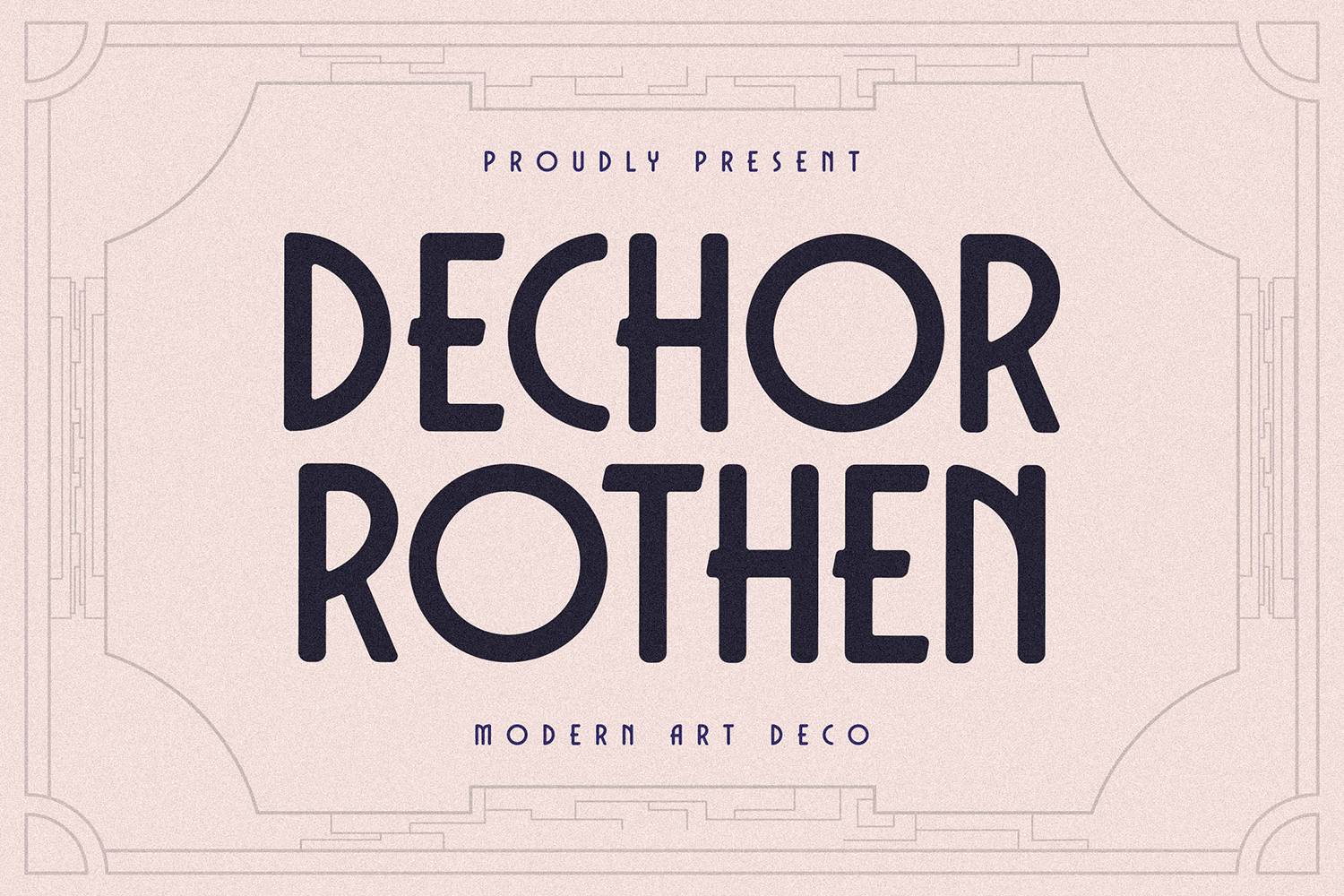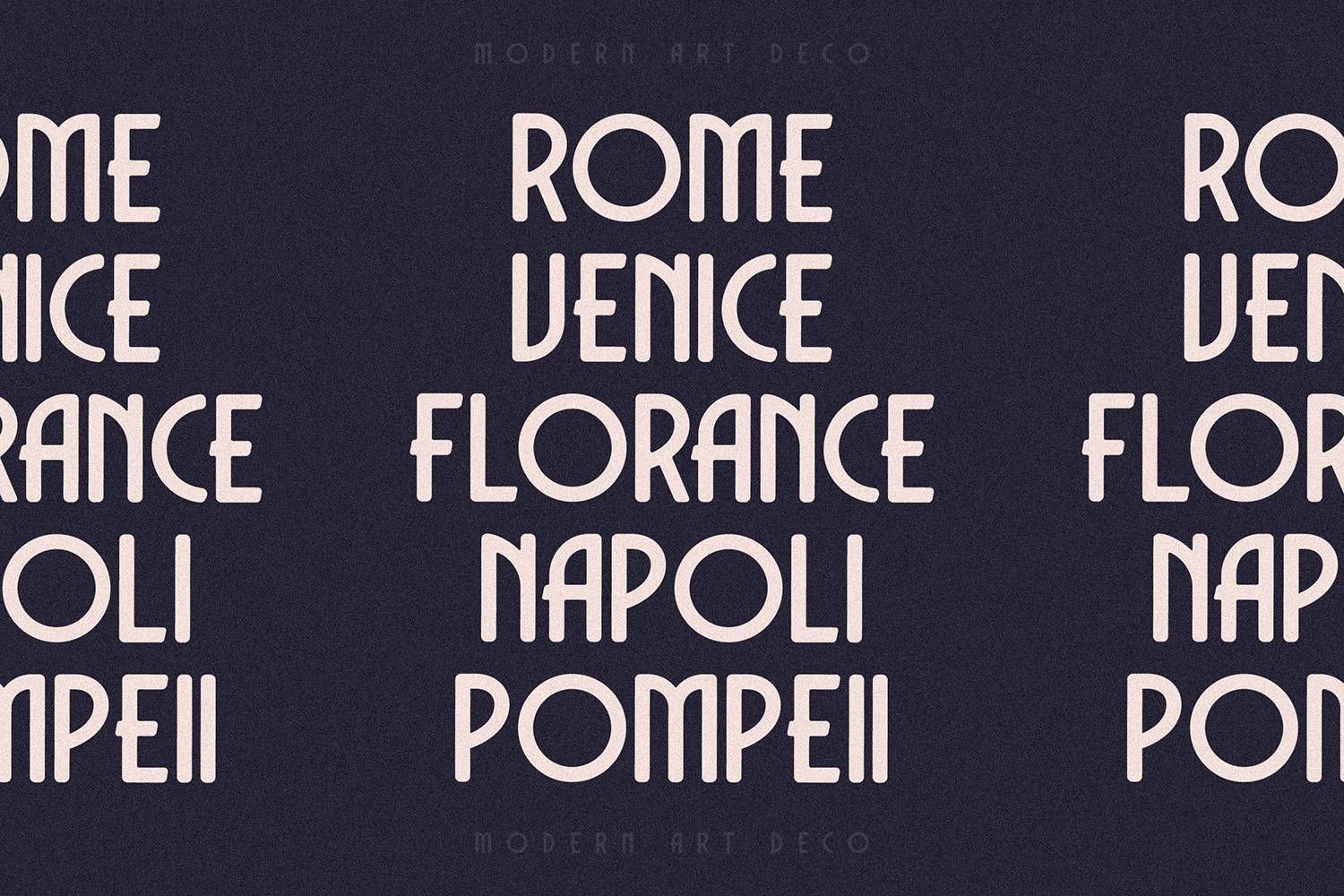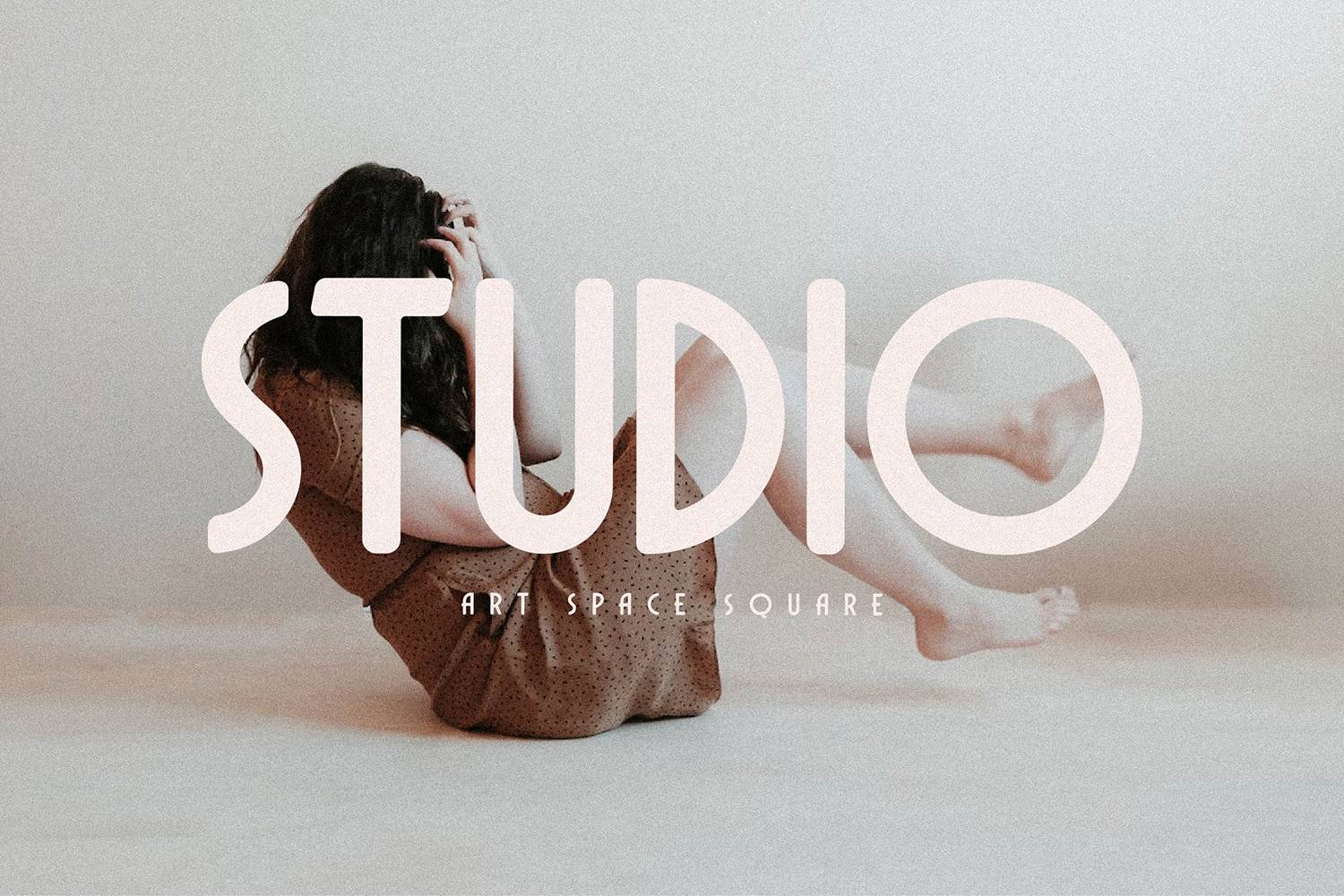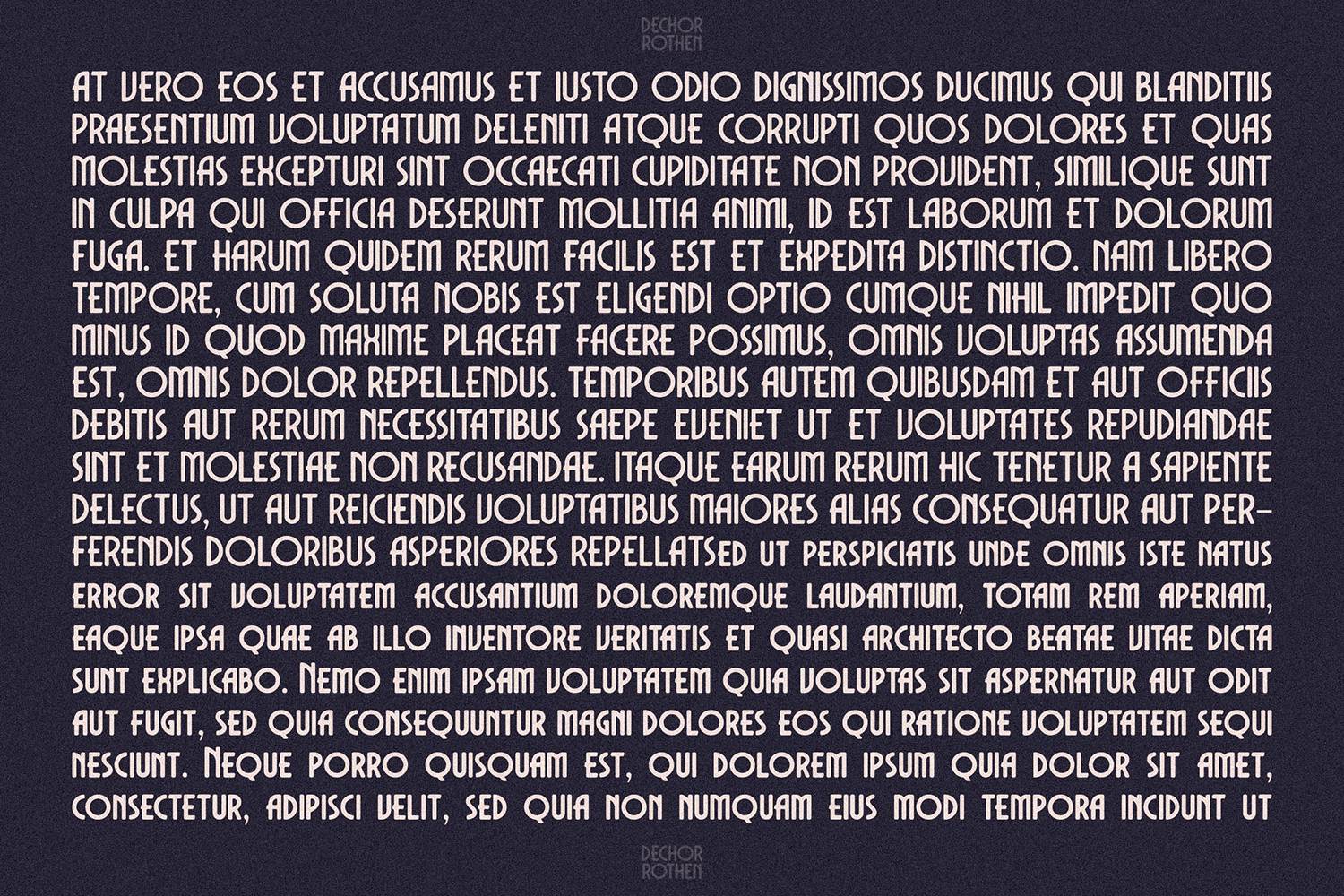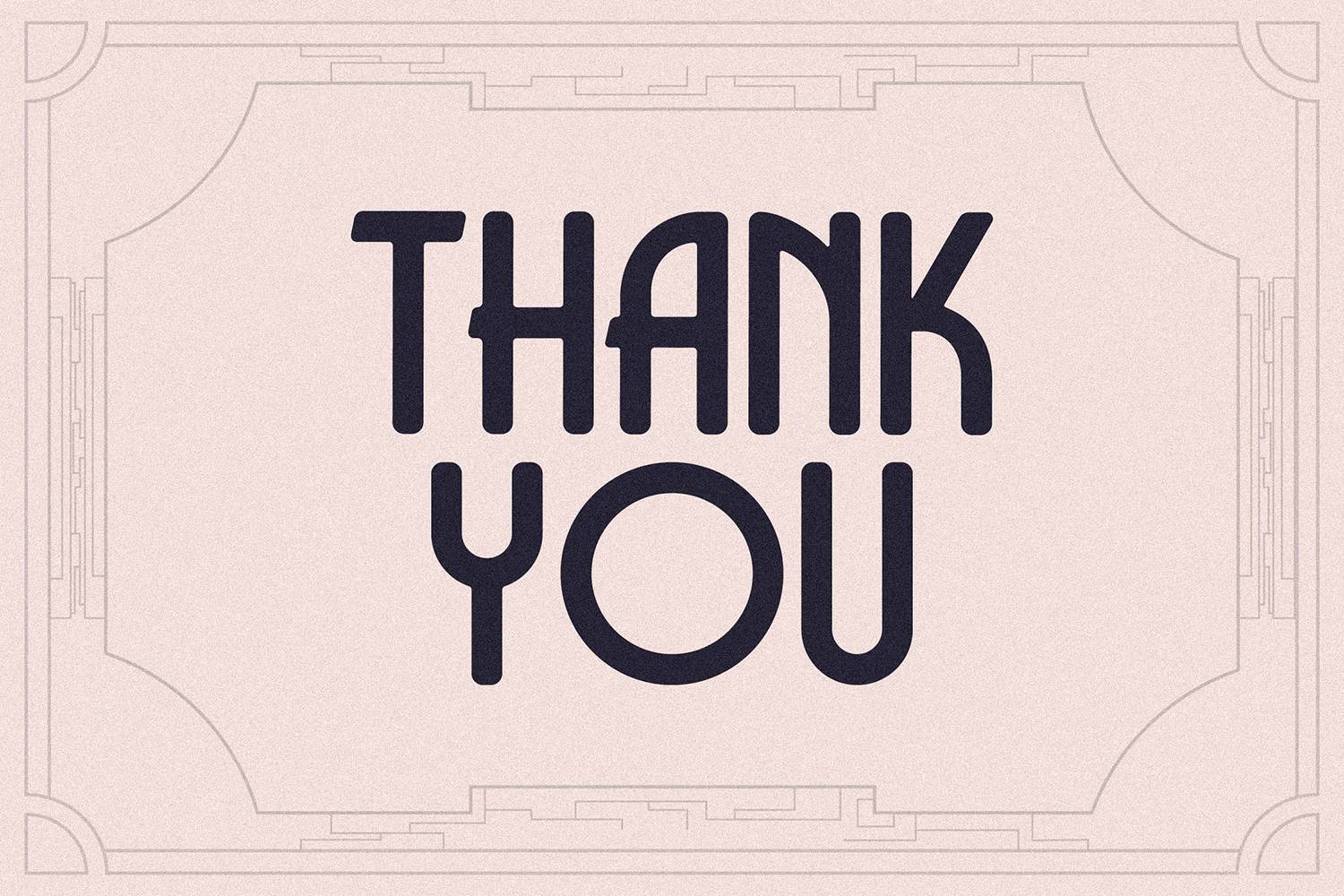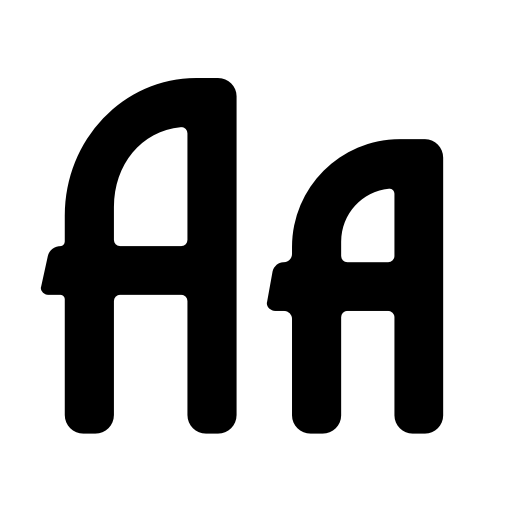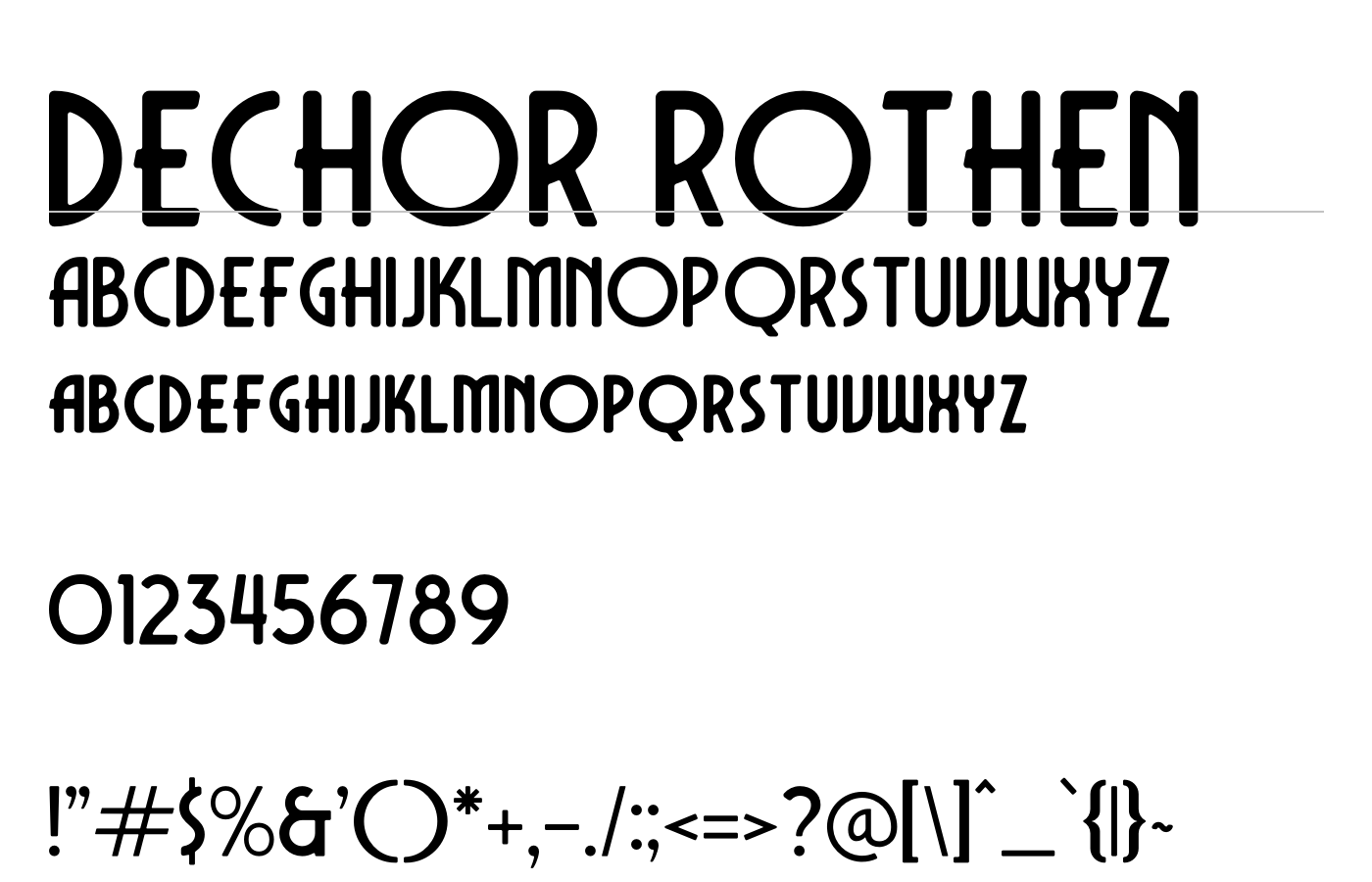
Dechor Rothen is a unique sans serif font characterized by its tall, narrow letterforms and smooth, rounded edges that give it a friendly yet modern feel. Its consistent stroke weight and distinctive shapes, such as the curved tail on the Q and the double-storied lowercase a, make it ideal for eye-catching headlines, branding, and creative projects seeking a playful but clean aesthetic. This font combines clarity with personality, making it a versatile choice for logos, posters, and stylish editorial designs.
Dechor Rothen Font
About Dechor Rothen Font